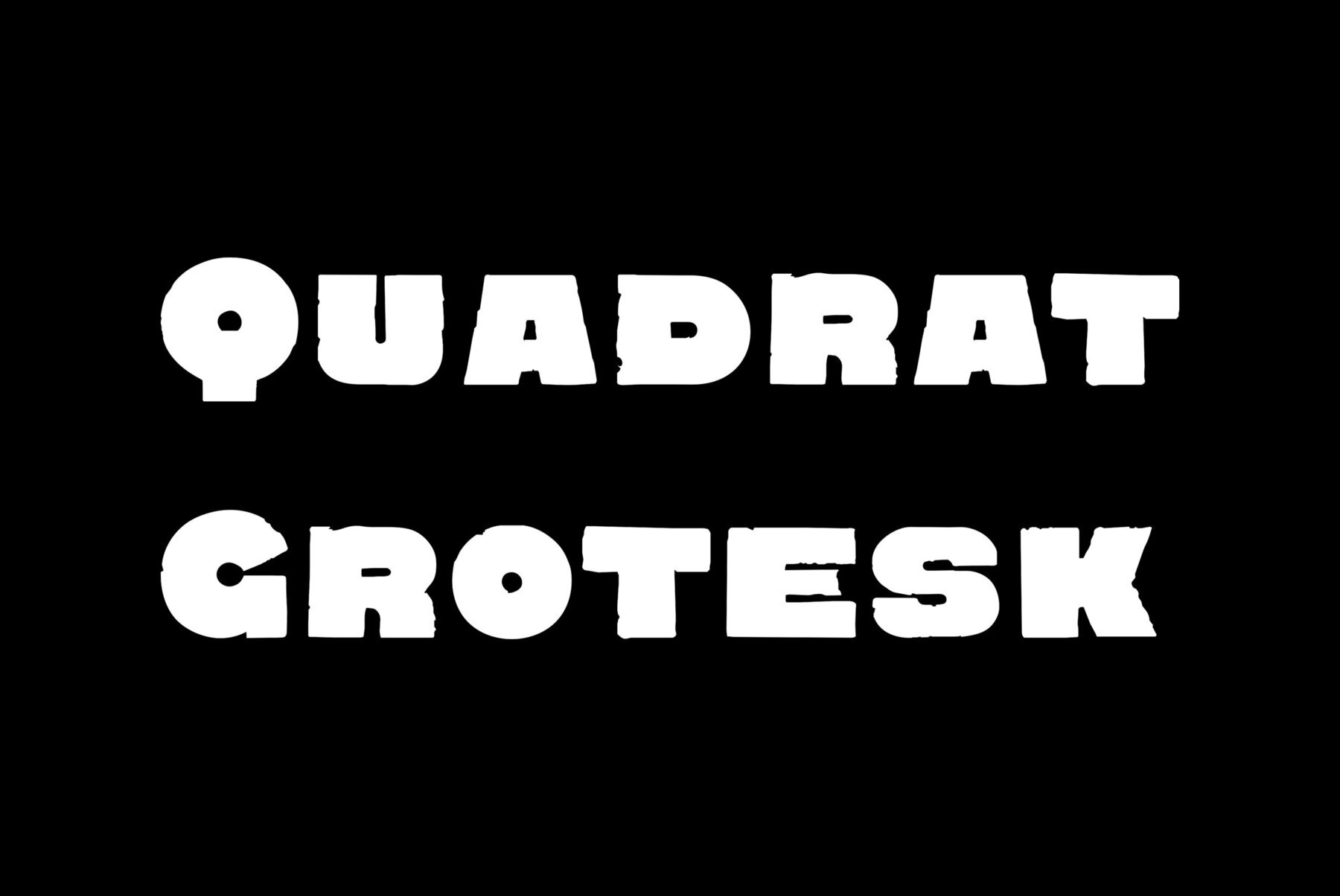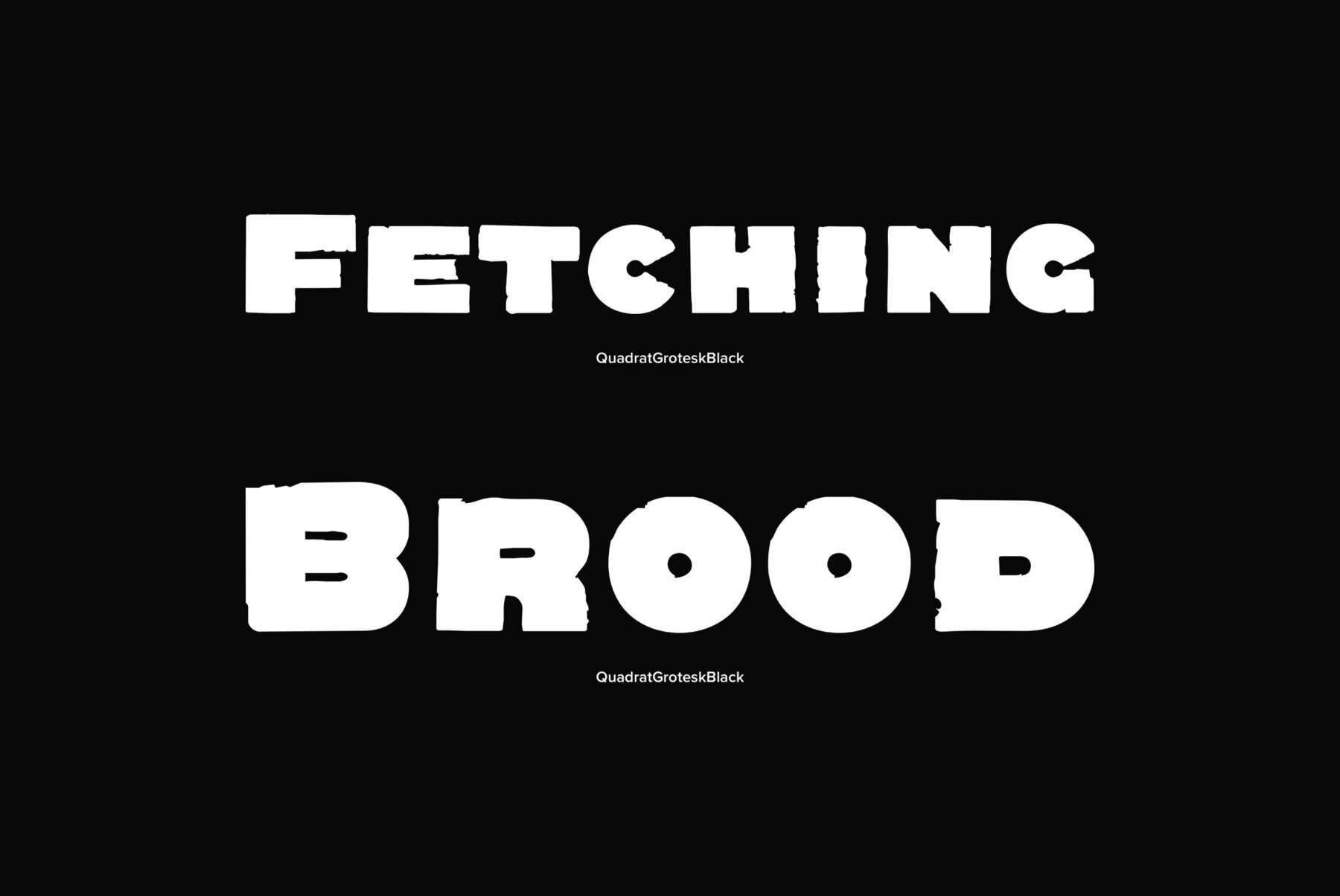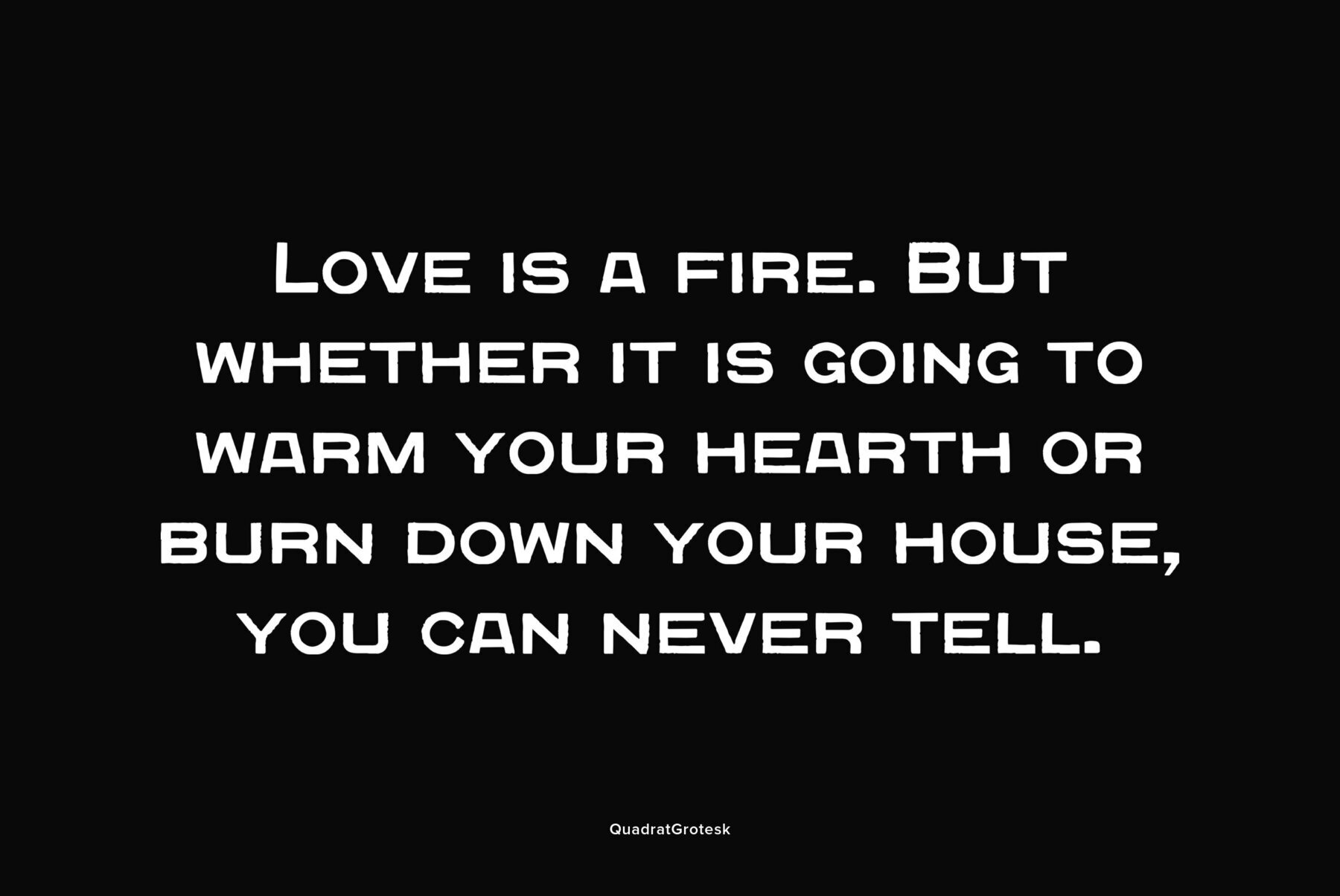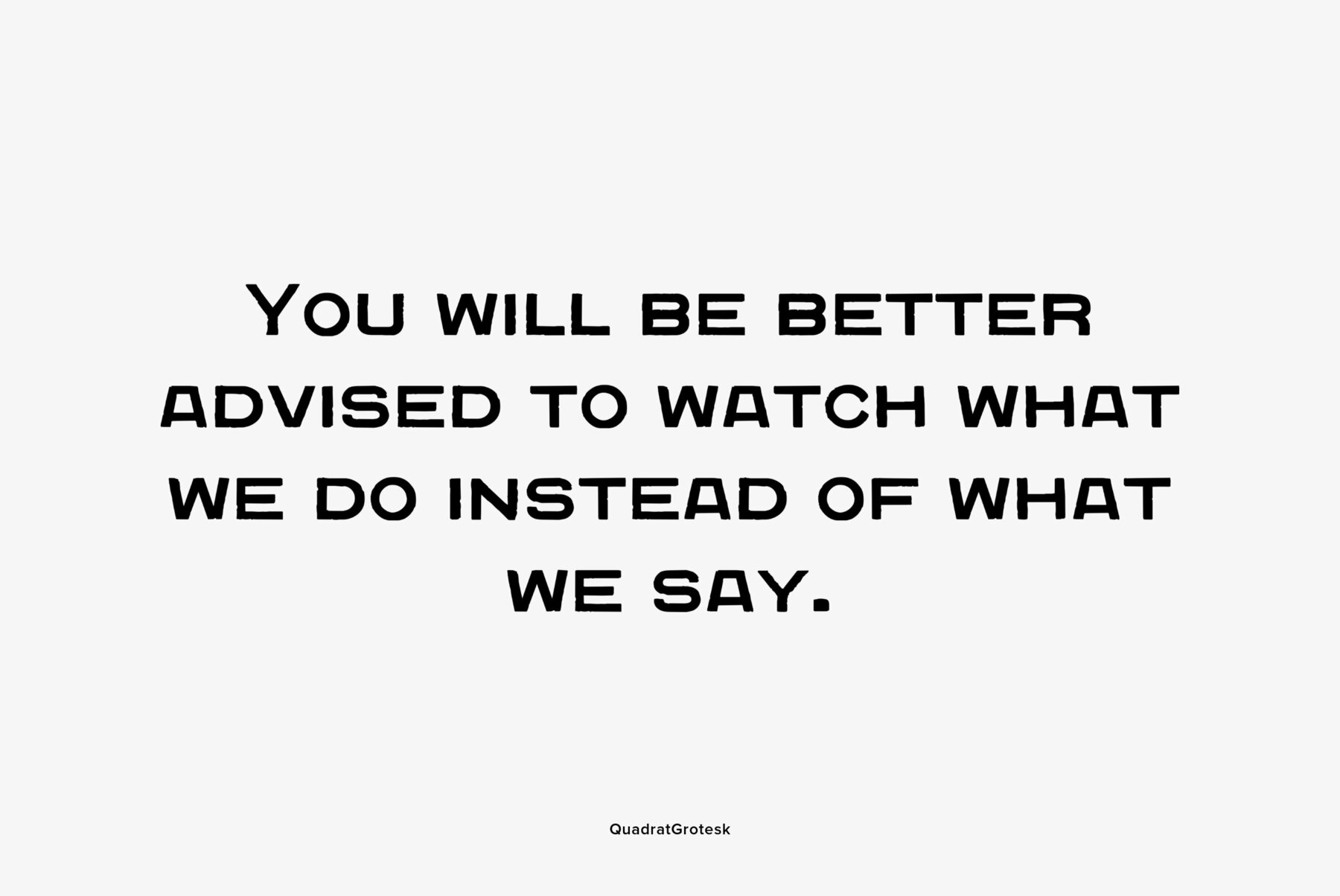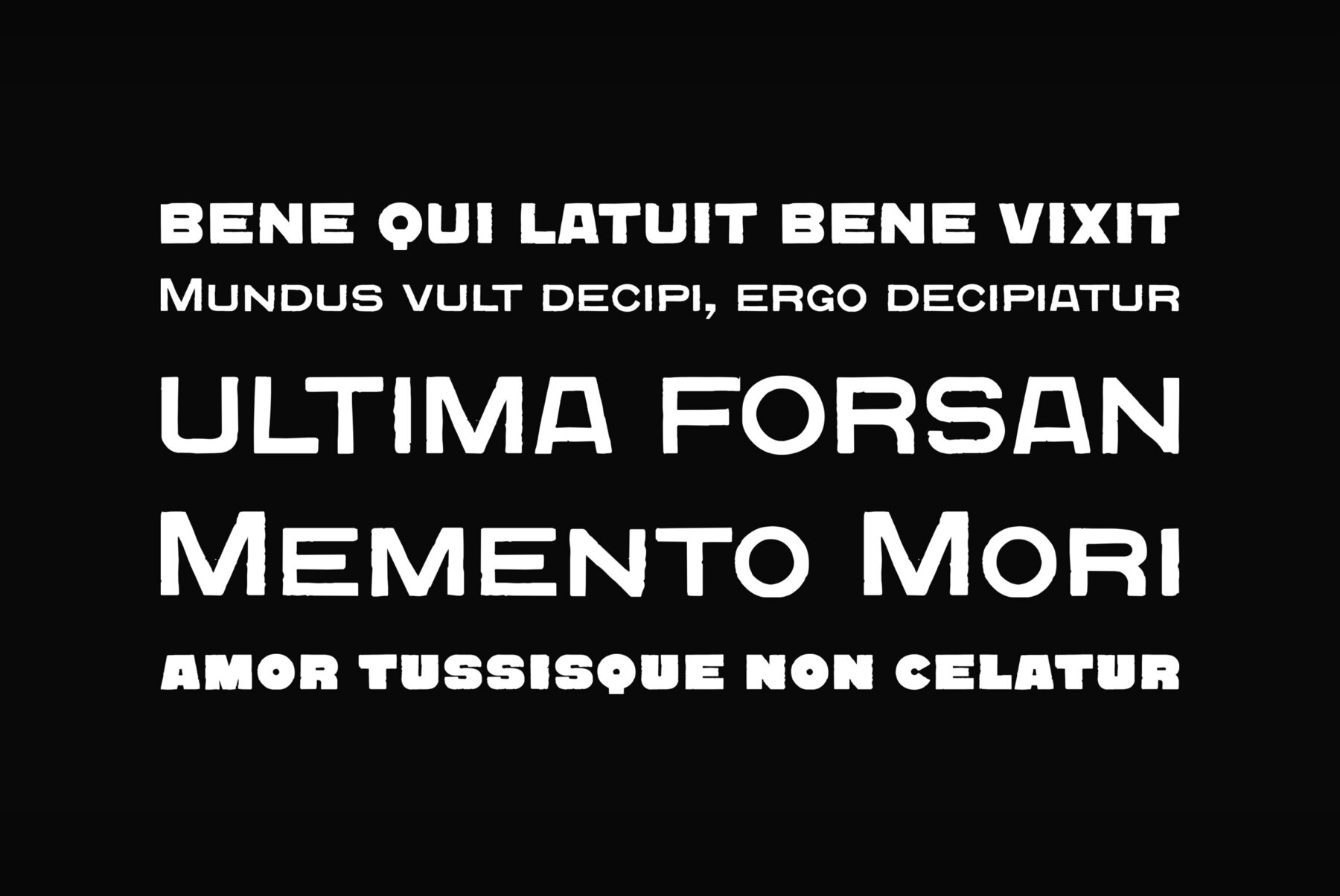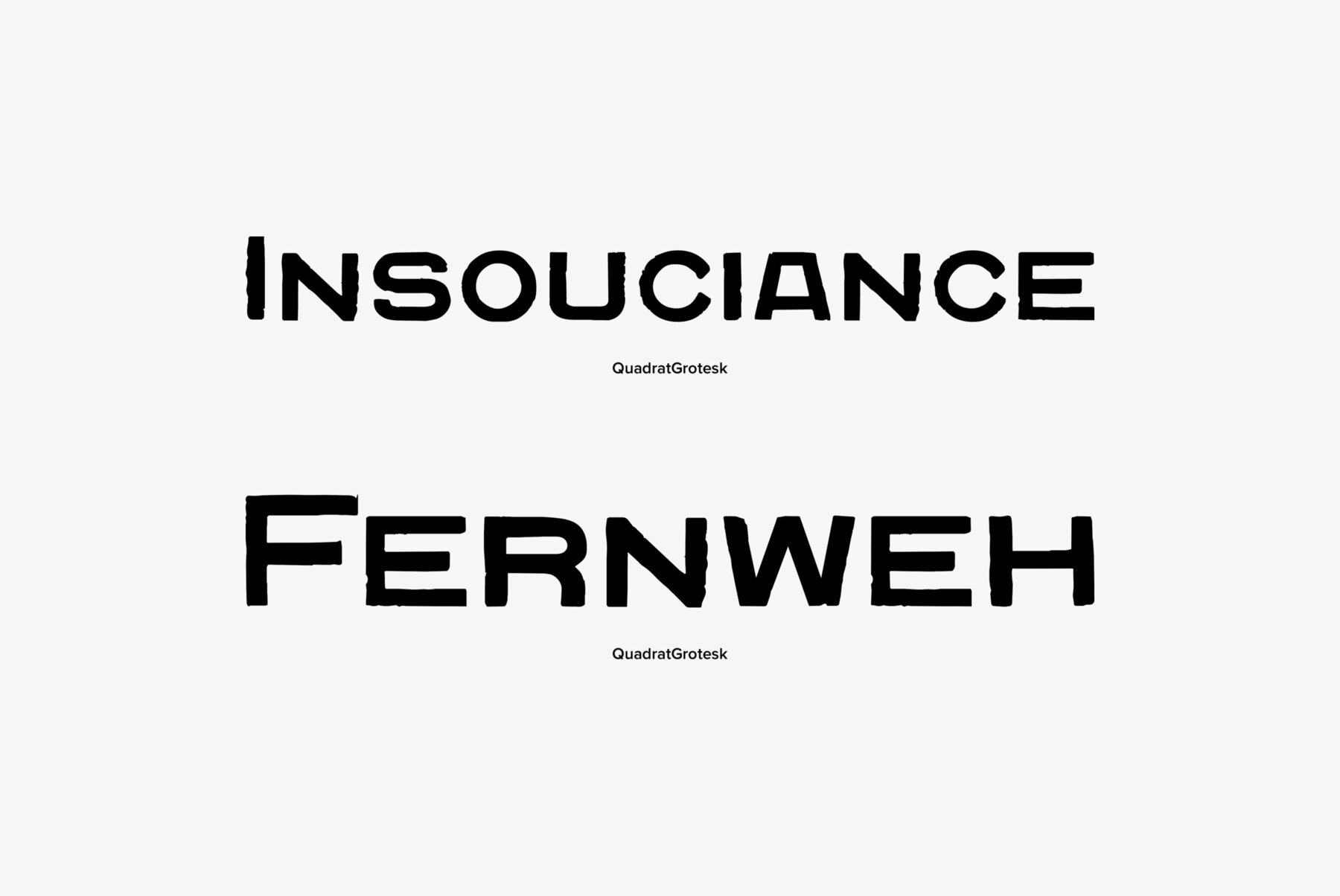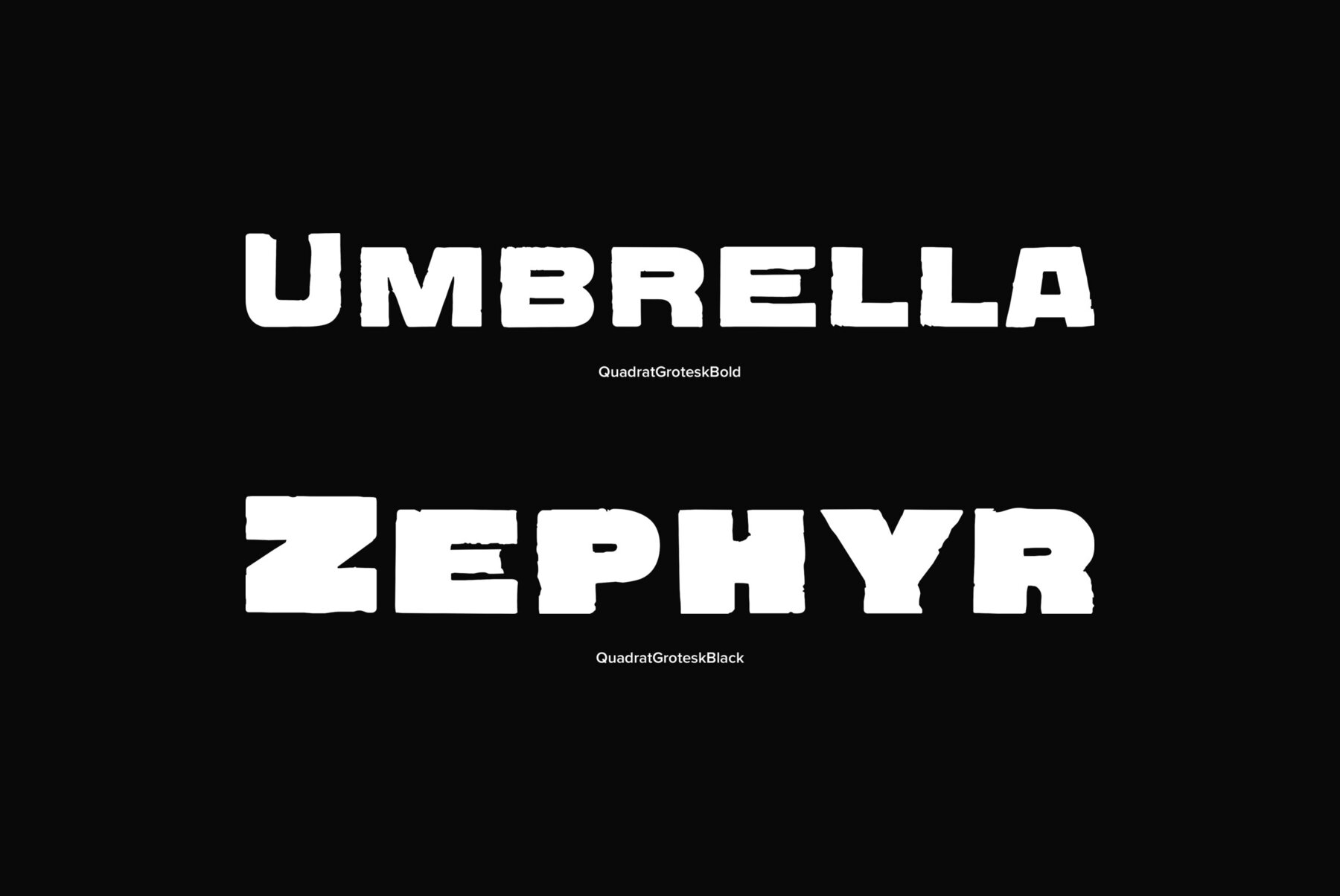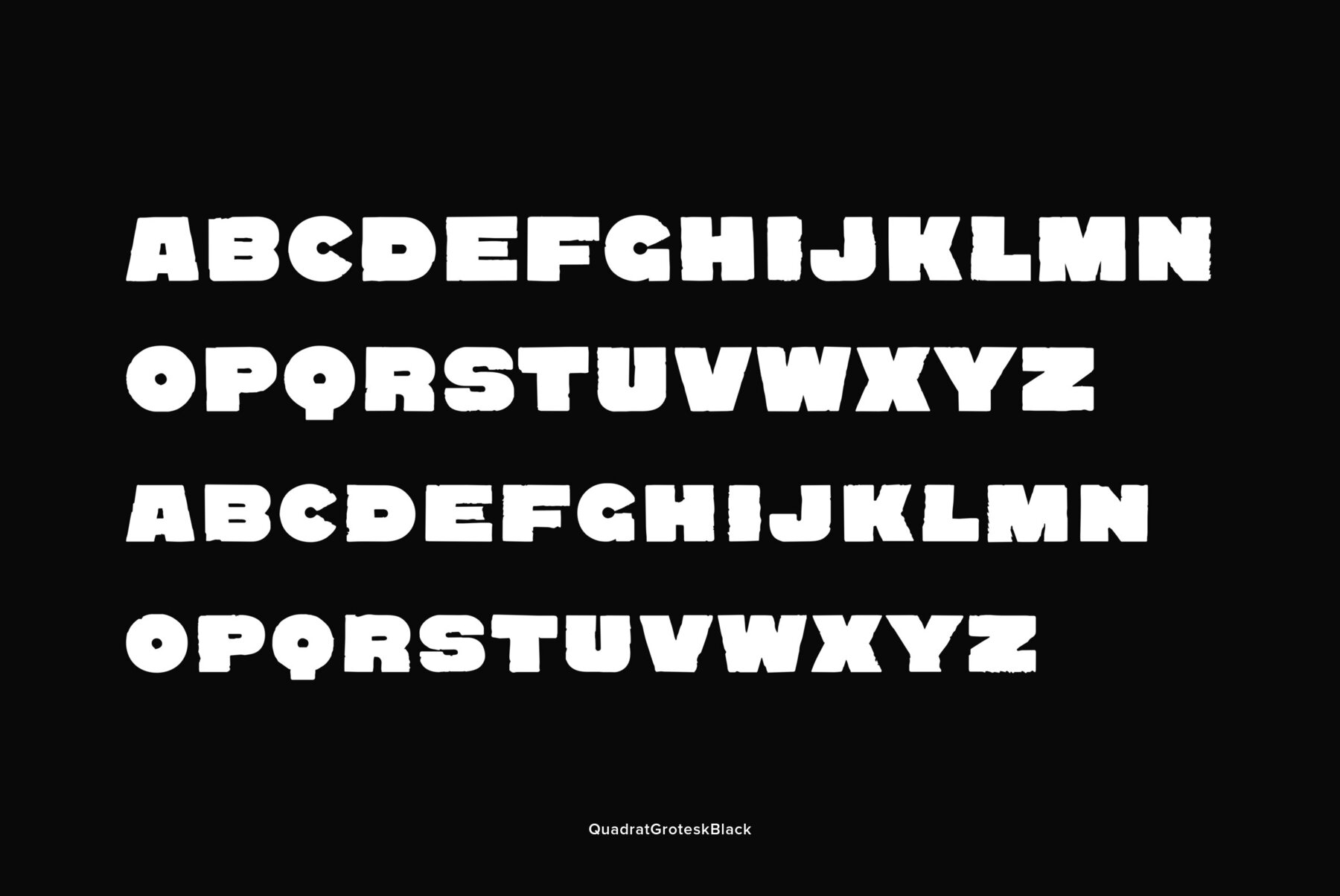
Quadrat Grotesk Font
PT Quadrat Grotesk™ was designed for ParaType in 2001 by Vladimir Pavlikov. An expanded sans serif with square letterforms due to what the face was named. Based on the shapes of one of old Russian wooden types. Wooden types were used for placard display composition at large sizes. Their printouts retained wooden texture and traces of handling. These features are reflected in the shapes of Quadrat Grotesk. It is a good typeface for display and advertising typography.